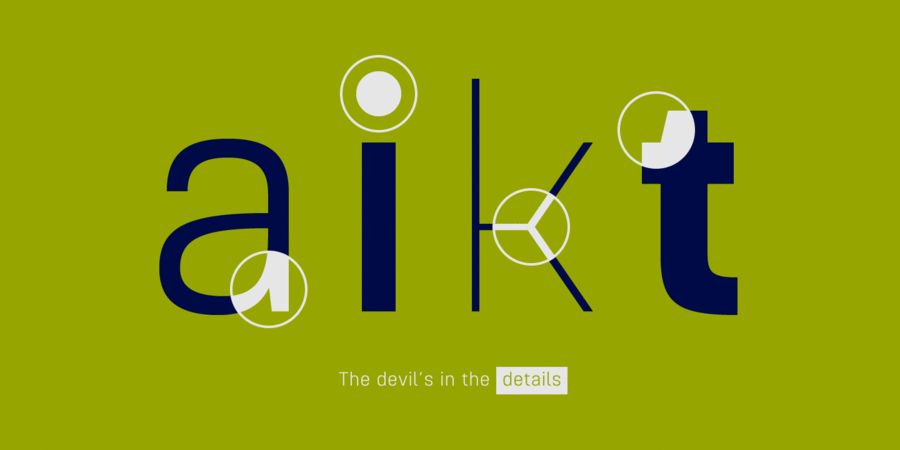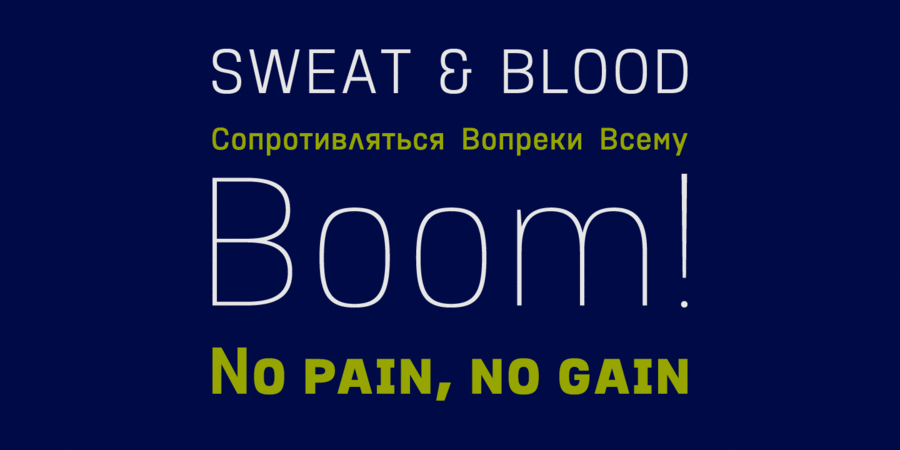
About Intensiva font family is a slightly condensed sans serif typeface with angular details and shortened endings that provide an unorthodox appearance. Despite of this particular features, it is suitable for any kind of project, text length, size and, due to it subtle condensation, it is particularly effective for space economizing. Intensiva consists of 8 styles, each containing small caps and glyph coverage for several languages. The font family has been designed for Graviton Font Foundry by Pablo Balcells in 2019.